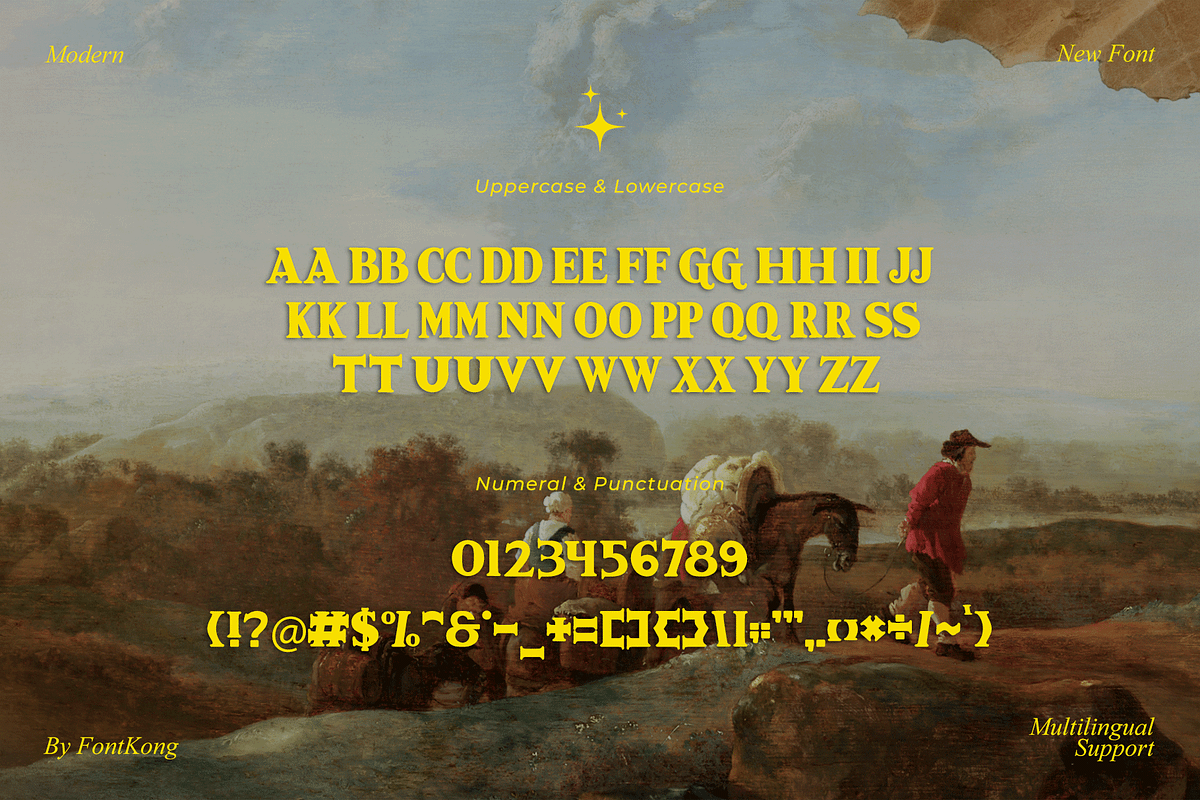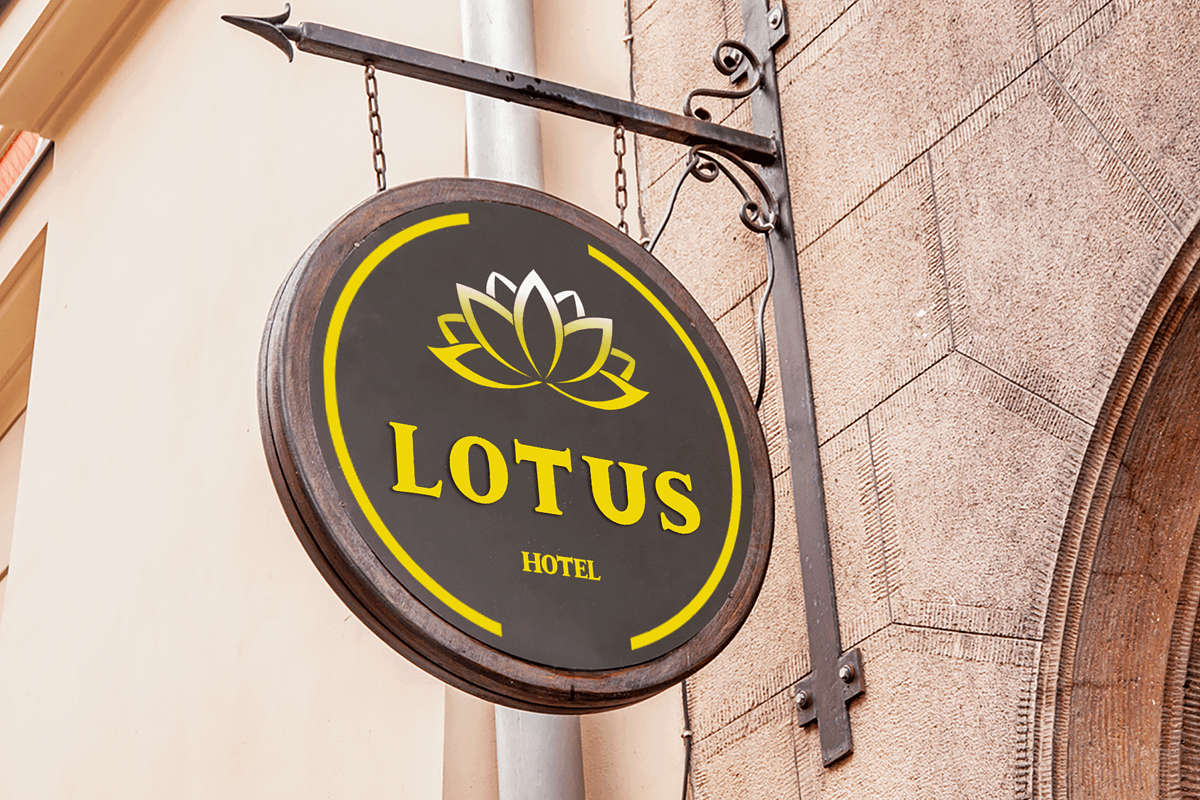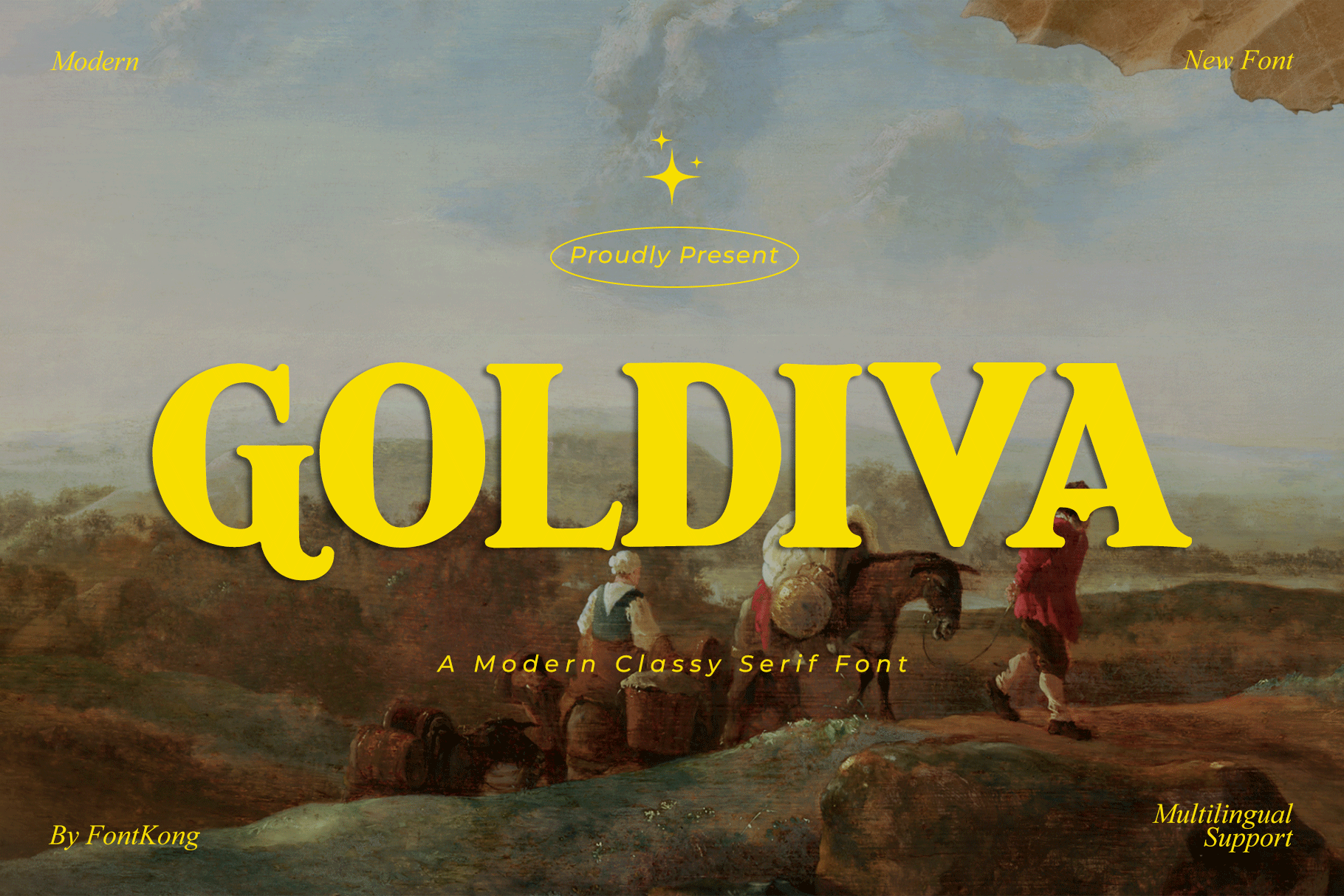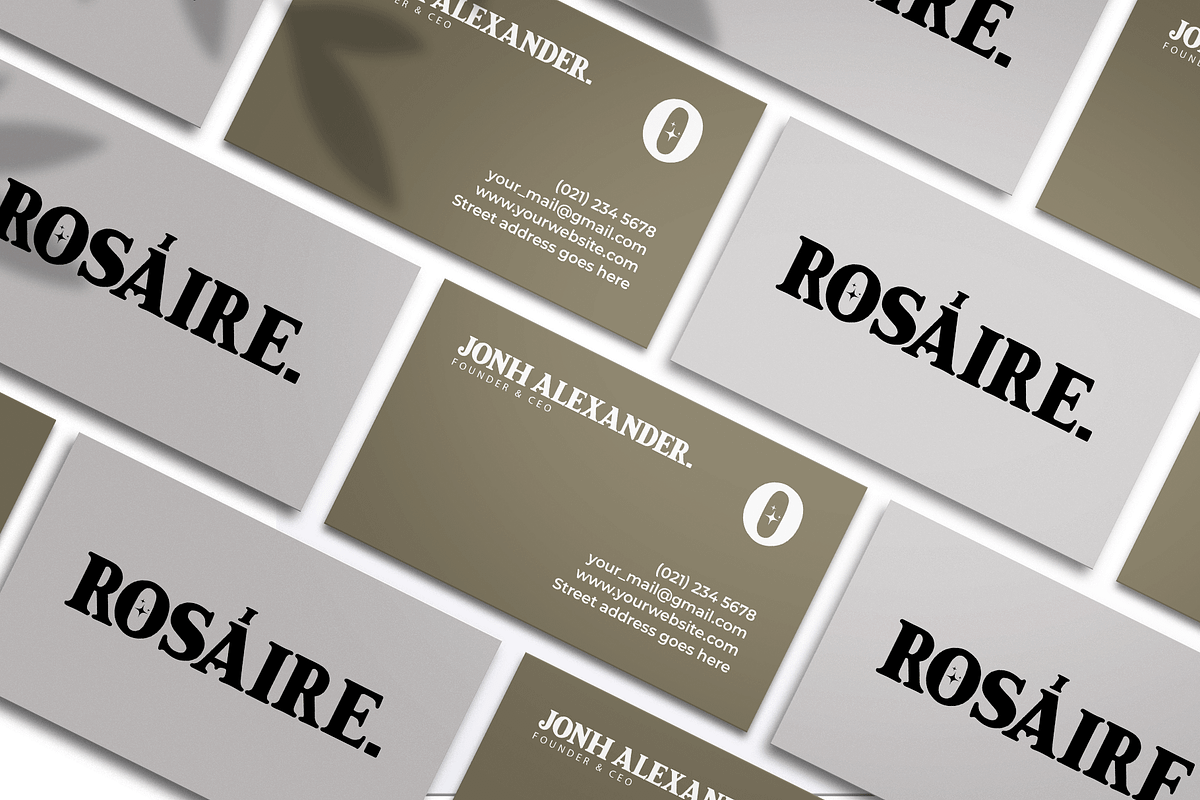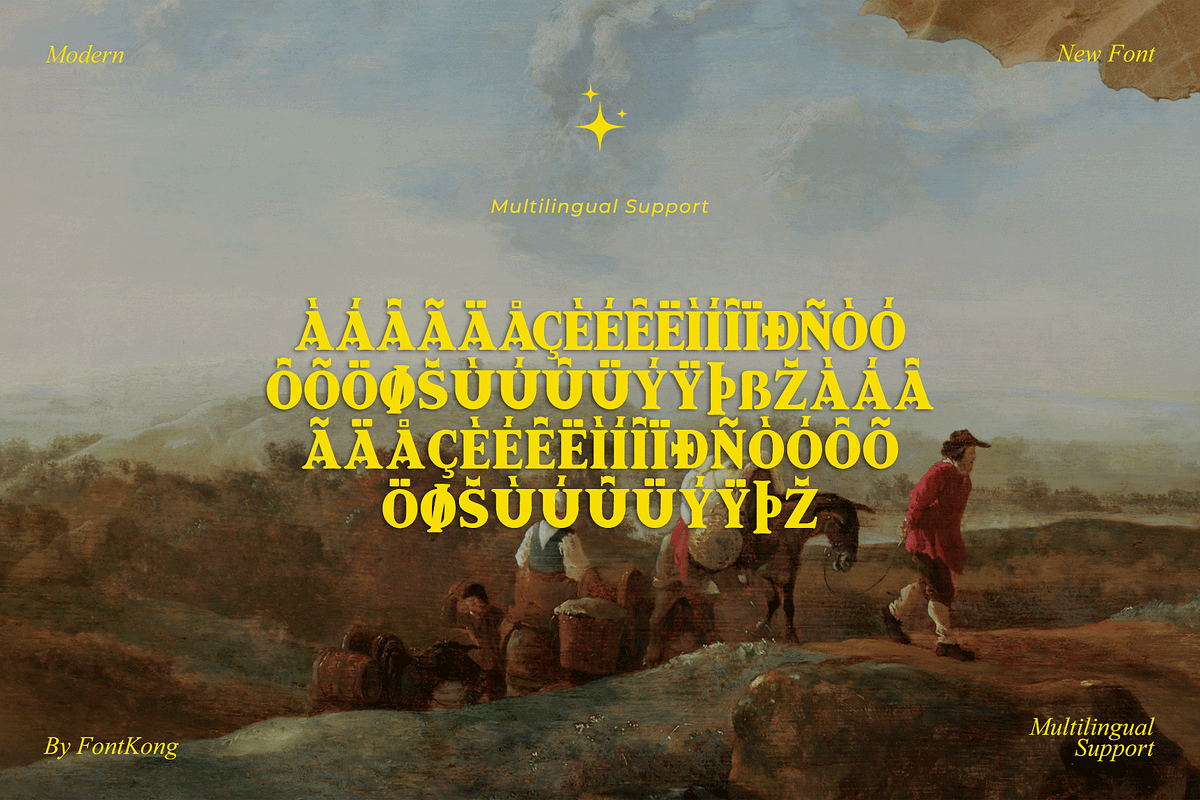
Goldiva - A Modern Classy Serif Font
Elevate your designs with Goldiva, a modern classy serif font that exudes luxury and sophistication. With its graceful curves and bold, refined style, Goldiva is the perfect choice for branding, editorial layouts, wedding invitations, and upscale packaging.
This font features a versatile character set with stylish alternates, ligatures, and multilingual support, making it suitable for a wide range of design projects. Whether you’re crafting a high-end logo, an elegant magazine headline, or luxurious product labels, Goldiva ensures your work shines with unmatched elegance and class.